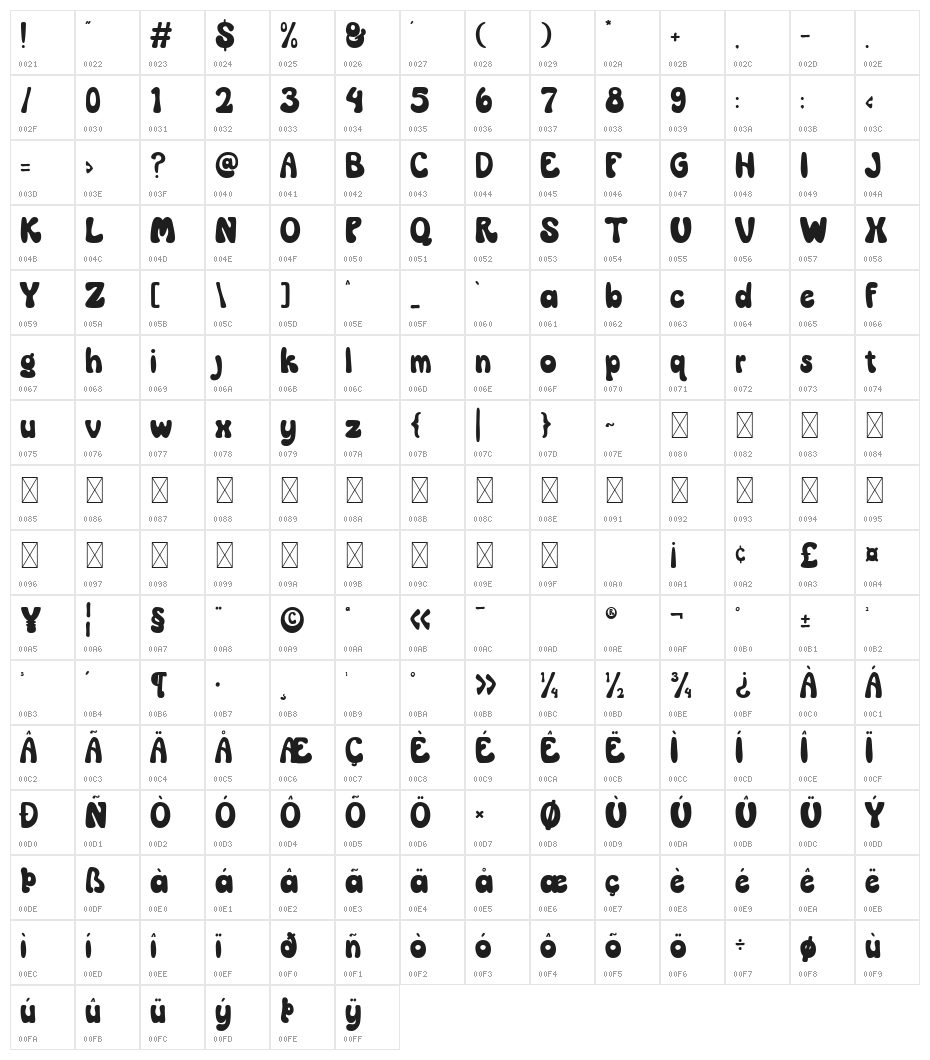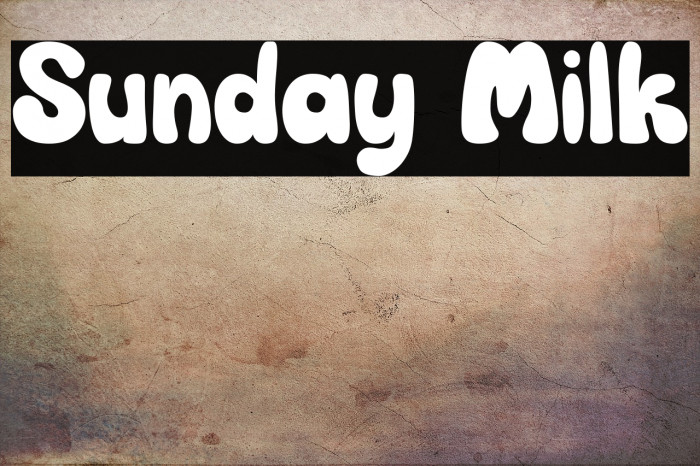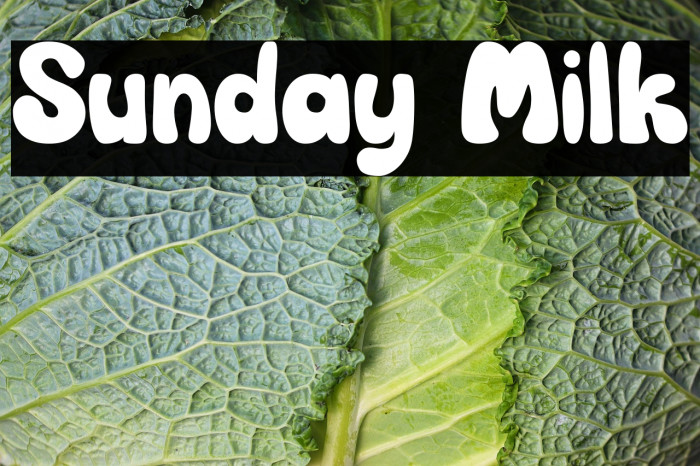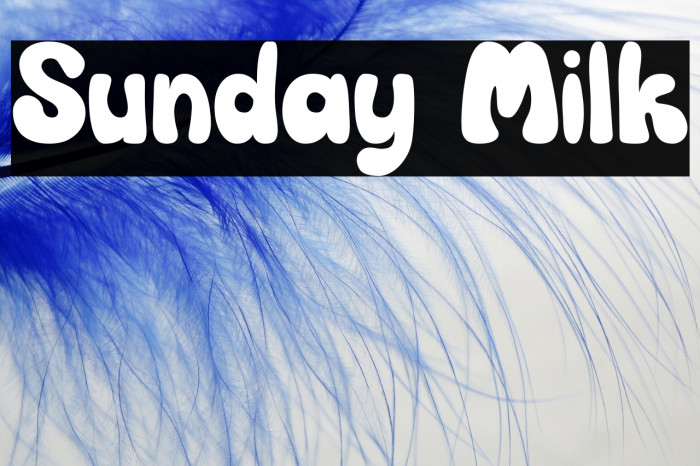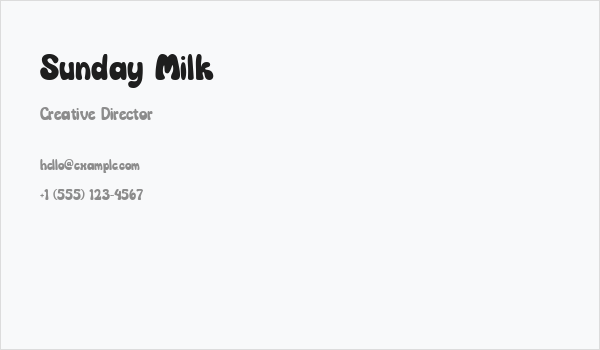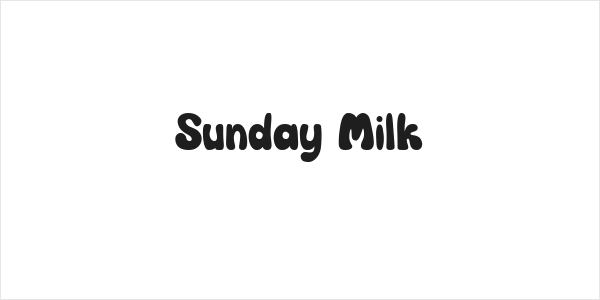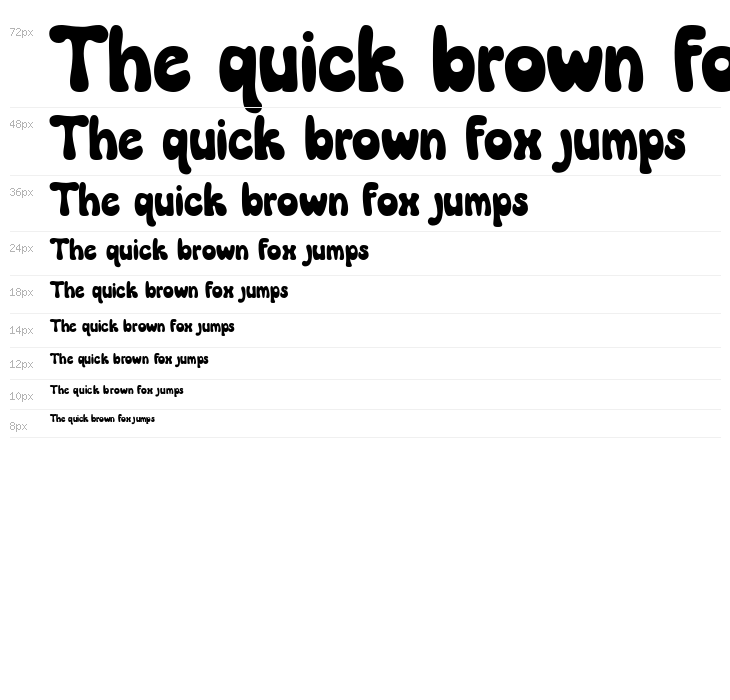
Sunday Milk Font
Sunday Milk Description
This playful and bold font features rounded, bubbly characters that exude a sense of fun and whimsy. The letters are thick and have a uniform stroke width, giving them a strong presence on the page. The rounded edges and slightly irregular shapes contribute to a casual, friendly feel. The font is highly legible, making it suitable for various creative applications. Its unique style is characterized by a lack of sharp angles, which enhances its approachable and informal appearance. The numbers and special characters maintain the same playful aesthetic, ensuring consistency across all text elements.